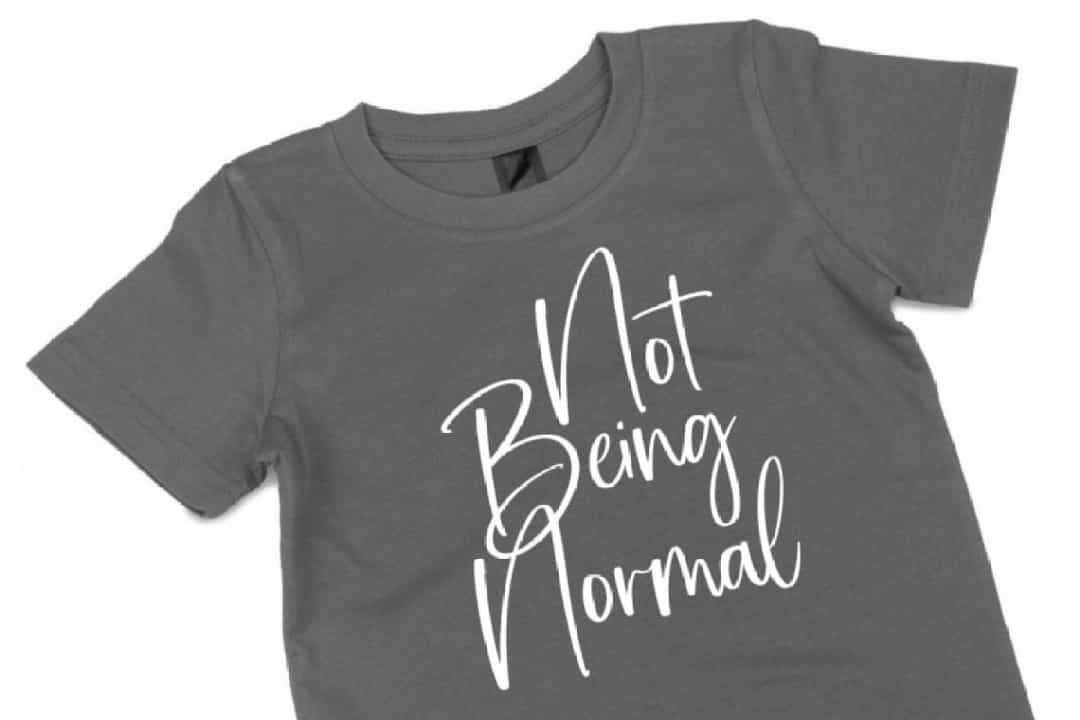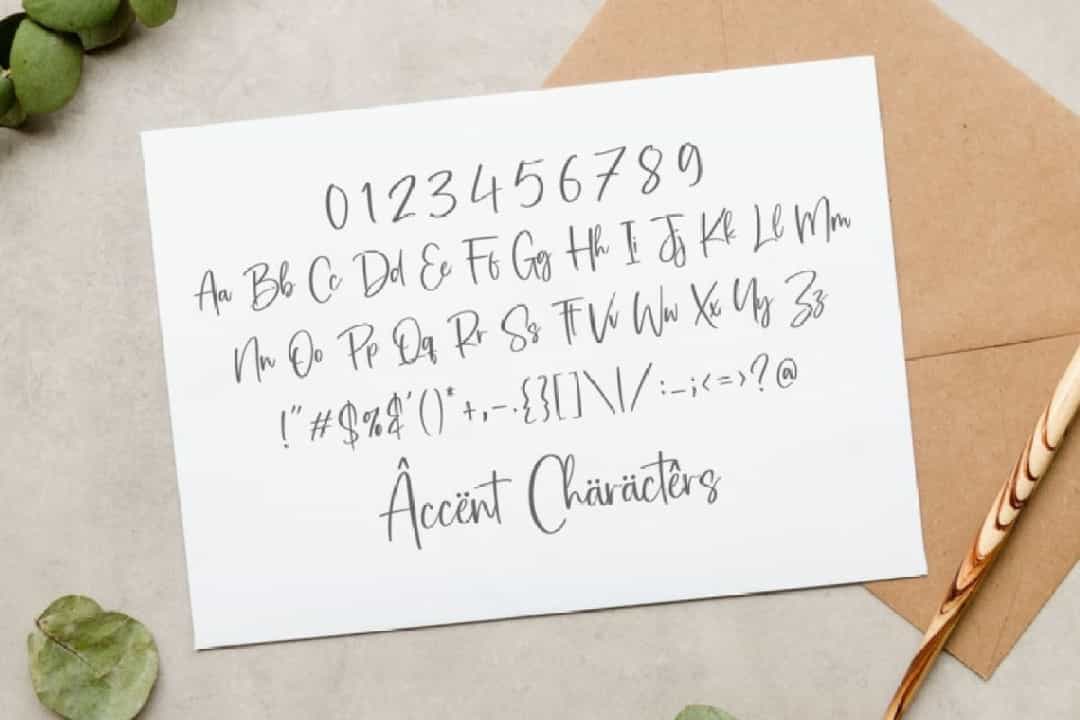
Bartes Malaga is an Modern Handwritten Font, It is ideal for packaging of products as well as branding projects, magazines wedding, social media or to simply convey words above the background. This font is compatible with TTF, Bartes Malaga also has multilingual support.